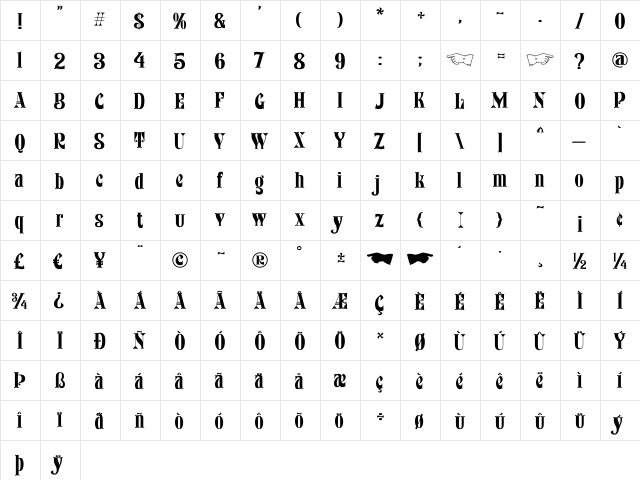
Bronc Stomper Regular
Design Context for Bronc Stomper Typeface
Bronc Stomper is a composed and adaptable typeface that performs quietly and consistently across a wide range of design contexts.